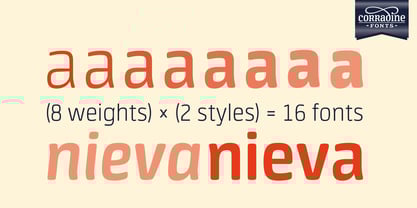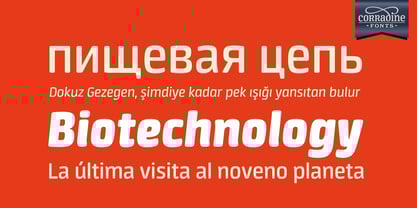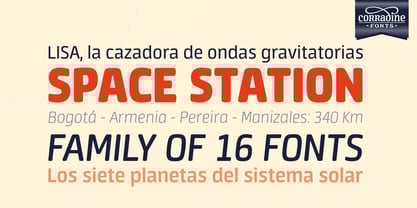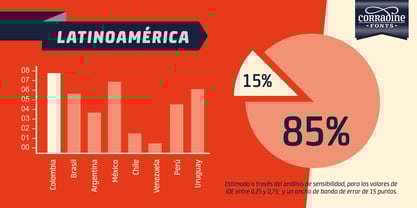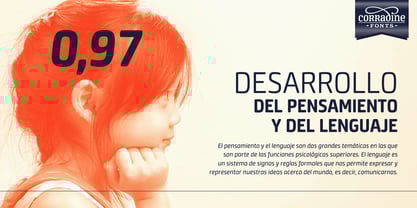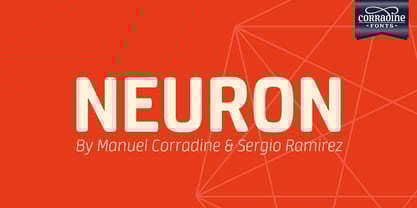
Neuron Font
Neuron Font is perfect for artificial intelligence branding, scientific research publications, medical technology companies, neural network presentations, cognitive science materials, biotech startups, brain research institutes, innovative healthcare brands, futuristic tech interfaces, and cutting-edge neuroscience communications.
What makes Neuron Font so exciting is its intelligent design that captures the essence of neural connectivity and cognitive processing while maintaining exceptional clarity and professional sophistication. This scientifically-inspired typeface embodies mental agility and intellectual precision, creating typography that resonates with audiences exploring the frontiers of brain science and artificial intelligence.
The Neuron Font family includes thin, light, regular, medium, bold, and black weights, complete with neural-inspired design features, cognitive styling elements, and scientific characteristics that provide designers with comprehensive tools for creating intelligent and memorable typography that celebrates the remarkable world of neuroscience and cognitive technology.
The intelligently designed letterforms of Neuron Font showcase cognitive elegance with neural character that creates instant recognition of scientific sophistication and intellectual authority. Each character displays meticulous attention to maintaining the neural-inspired clarity that defines cognitive excellence while ensuring superior readability and professional versatility. The font's intelligent construction and neural spacing contribute to its sophisticated appearance and scientific appeal.
Research institutions and cognitive technology companies consistently choose Neuron Font for projects requiring scientific credibility and intellectual sophistication. The comprehensive character set includes uppercase and lowercase letters, numerals, extensive punctuation, international accents, and neural-inspired elements that provide complete support for scientific branding applications and cognitive design compositions.
The intellectual versatility of Neuron Font ensures exceptional performance across both traditional print and modern digital platforms. Whether developing neuroscience brand identities, creating artificial intelligence marketing, or designing scientific research materials, this remarkable typeface delivers consistent intelligence that resonates with audiences seeking cognitive advancement and neural technology breakthroughs.